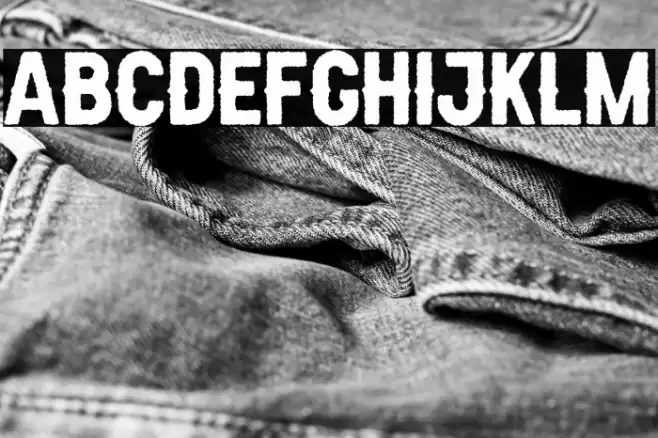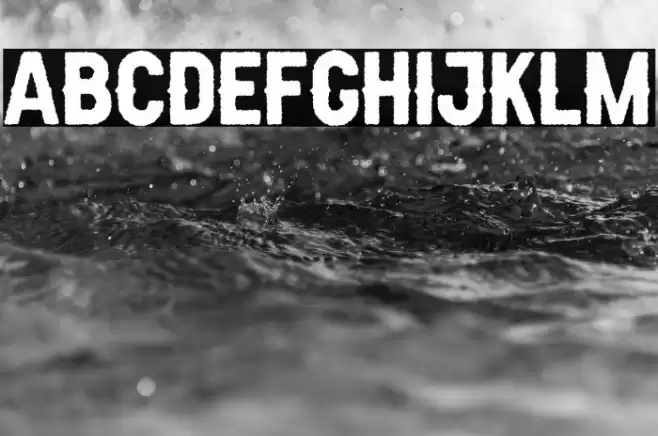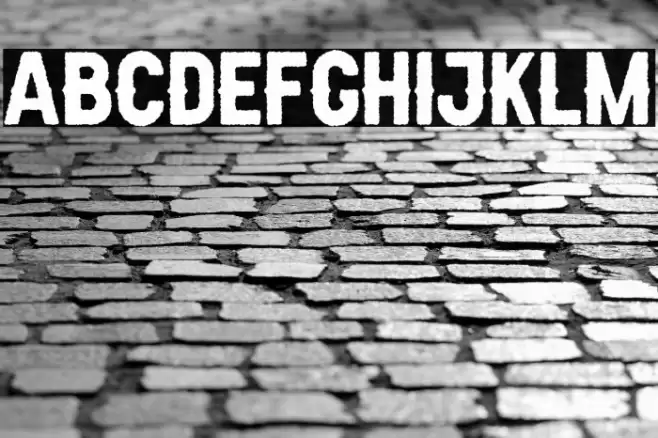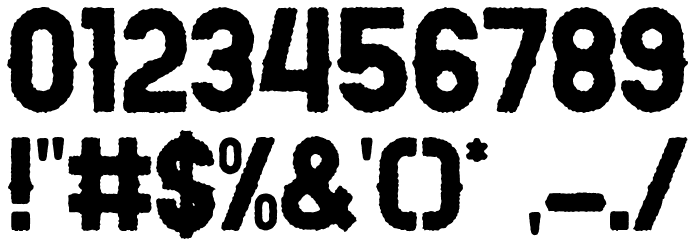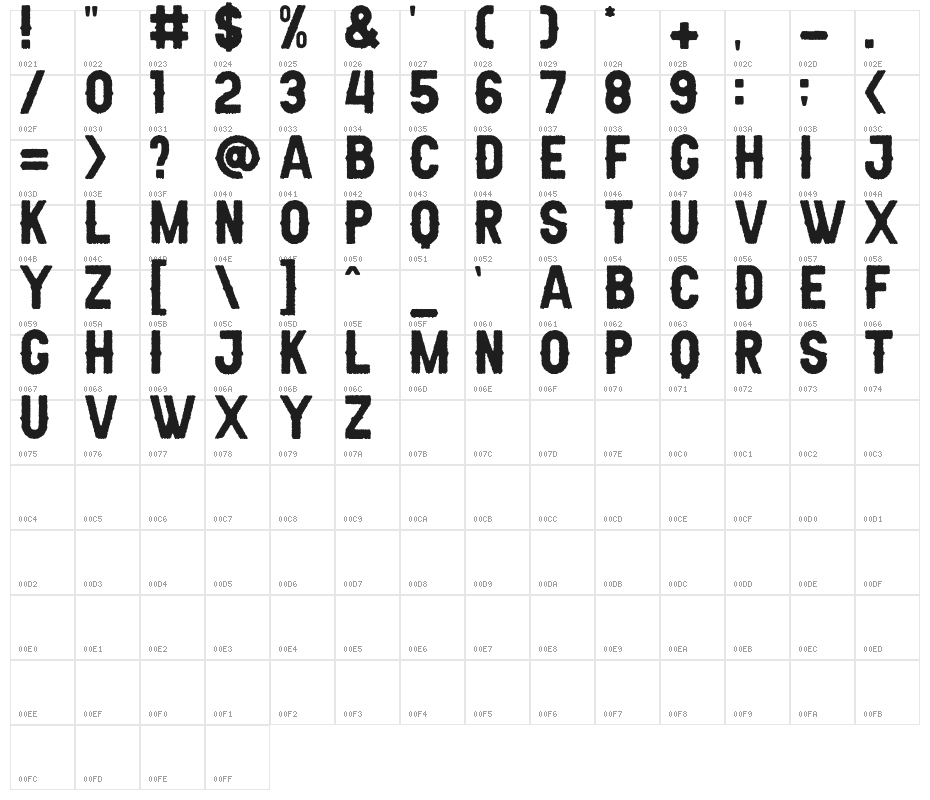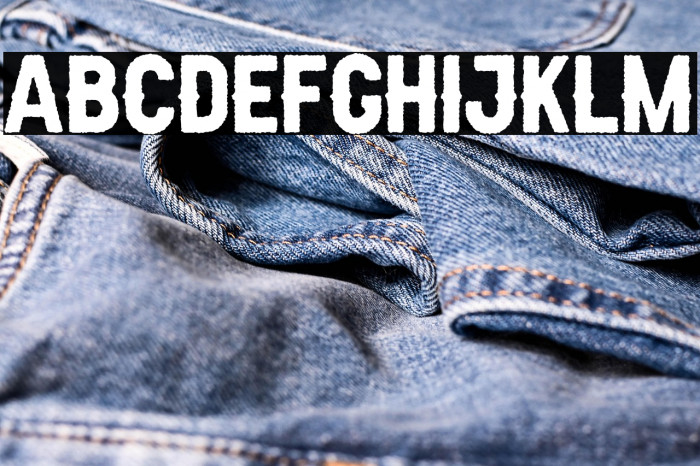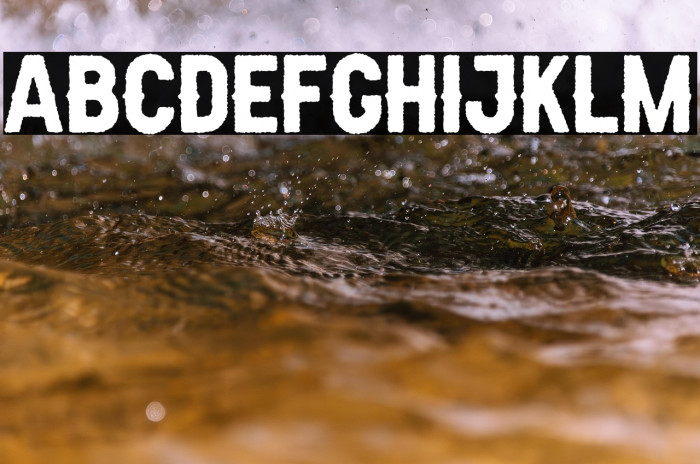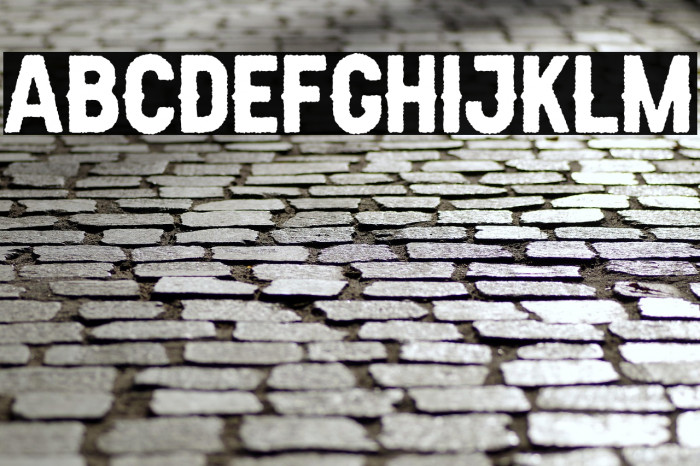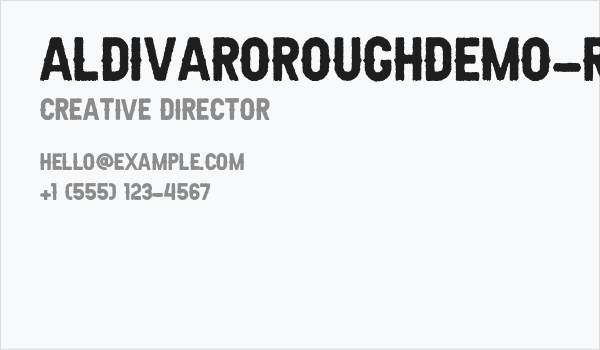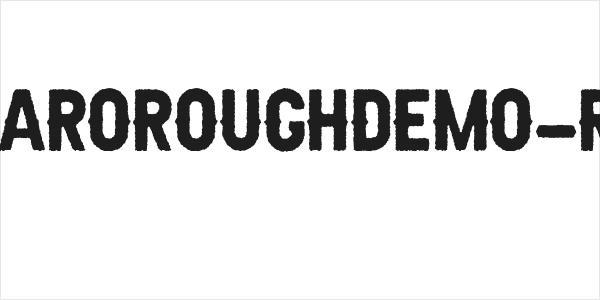
AldivaroRoughDemo-Rough Font
AldivaroRoughDemo-Rough Description
This font features a bold, rough texture that gives it a rugged and distressed appearance. The characters are thick and heavy, with a slightly uneven edge that adds to its handcrafted feel. The uppercase letters are prominent and assertive, while the numbers and special characters maintain the same boldness and roughness. This style is reminiscent of vintage or industrial design, making it ideal for projects that require a strong, impactful visual presence. The font's rough texture suggests a tactile, organic quality, perfect for designs that aim to convey authenticity and strength.
A bold, rough-textured font with a vintage, industrial feel from Uncategorized fonts.
- Overall Style: Vintage